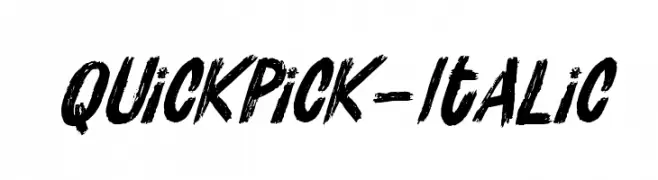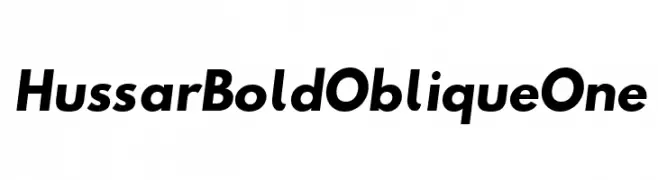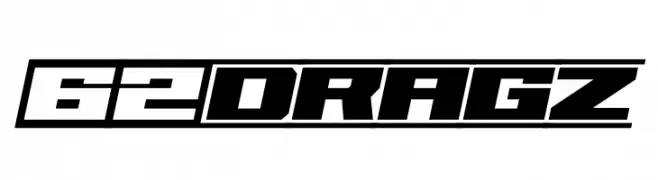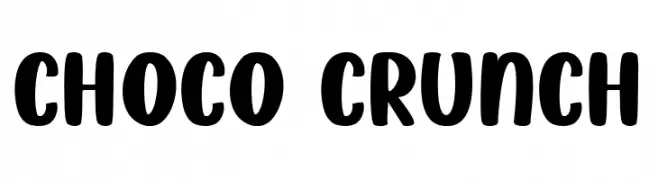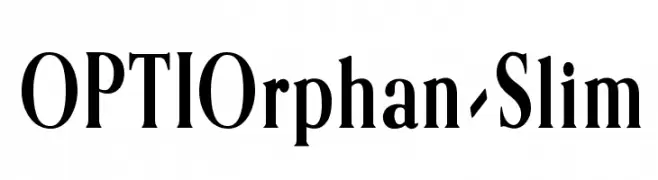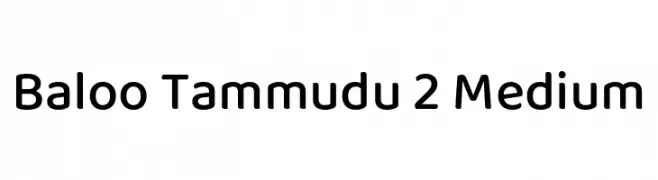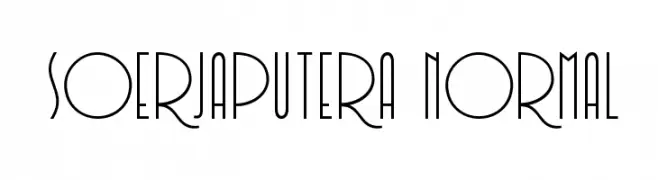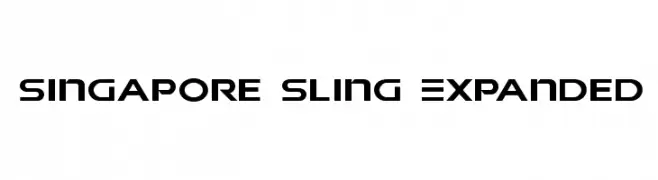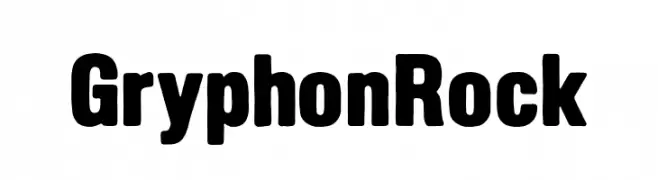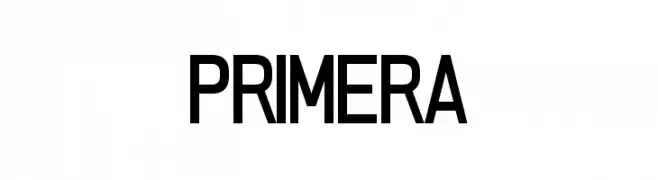
A bold, hand-painted italic font with dynamic, brush-like strokes.
A bold, slanted font with a dynamic and modern style.
A bold, oblique font with strong, dynamic strokes and a cohesive design.
A bold, modern sans-serif font with clean lines and strong presence.
A bold, geometric font with an industrial, futuristic style.
A bold, playful font with rounded, low-contrast characters.
A classic serif font with elegant, elongated letterforms and refined details.
A bold, geometric font with a futuristic and industrial style.
A playful, rounded font with smooth curves and a friendly appearance.
A modern serif font with elegant proportions and clear readability.
An elegant, flowing script font with ornate uppercase and smooth lowercase letters.
A modern, geometric font with art deco influences and elegant, slender characters.
A bold, futuristic font with geometric shapes and clean lines.
A bold, impactful font with thick, uniform strokes and rounded edges.
A bold, italic font with a dynamic, angular style.
A bold, classic blackletter-style font with intricate detailing and strong vertical emphasis.
A bold, rounded font with a playful and modern style.
A bold, outlined font with a playful and cartoonish style.
A playful, bold font with a hand-drawn, whimsical style.
A playful, cartoon-like font with exaggerated, dynamic characters.
A bold, playful handwritten font with thick strokes and rounded edges.
A bold, italicized font with a modern and dynamic style.
A modern, geometric font with thin strokes and a minimalist design.
A tall, narrow, and modern font with thin strokes and a sleek design.
A bold, decorative font with ornate swirls and flourishes.
A modern, condensed sans-serif font with a clean and professional look.